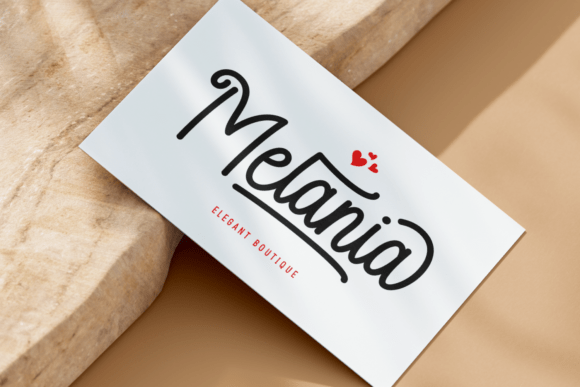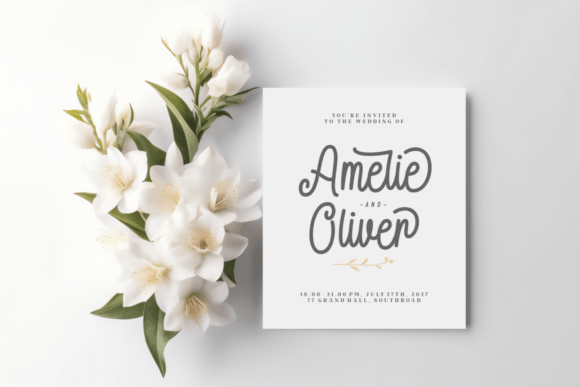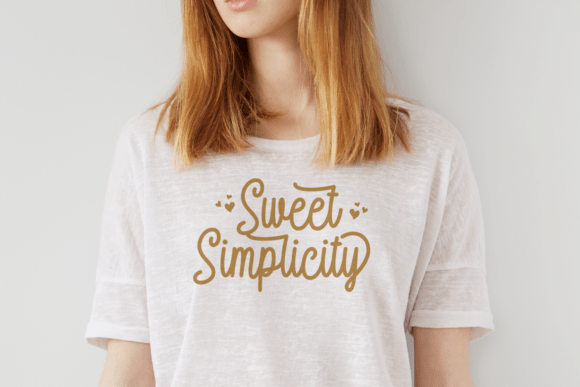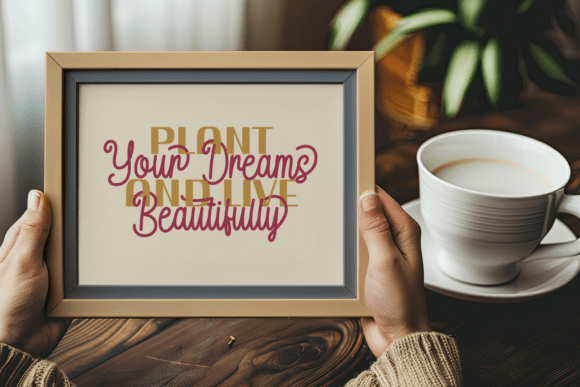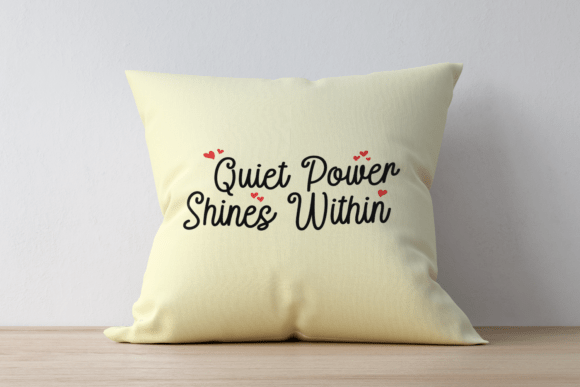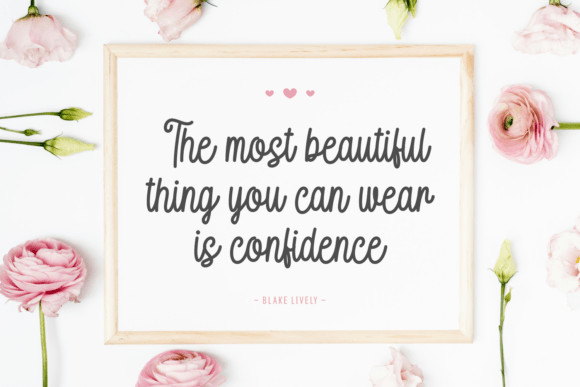
Unleashing the Magic of Handwritten Design
As a designer, have you ever wanted to add a personal touch to your work without sacrificing professionalism? Perhaps you’re looking for a font that exudes warmth and character, yet still conveys your message with clarity. For those moments when you need to inject a little extra personality into your designs, consider the beautifully crafted Candly Font.
This stunning handwritten script font seamlessly blends modern minimalism with effortless charm, making it the perfect choice for designers seeking to create authentic and engaging visuals. With its smooth, flowing strokes and soft yet confident letterforms, Candly Font adds a unique and stylish touch to any design, from branding and advertising to digital and print materials.
Candy Font Key Features
- Unique Characteristics: Highly customizable, featuring 8 different font weights and 3 styles (Regular, Italic, Bold)
Candly Font Review
I recently had the chance to work with the Candly Font, and I have to say it’s a mixed bag. Here’s my honest review.
- The Candly Font is super playful and fun, making it perfect for children’s books, greeting cards, or any project that needs a lighthearted touch.
- The font is highly customizable, allowing you to adjust the size, color, and spacing to fit your design needs.
- The Candly Font is also very legible, even at smaller font sizes, which is a big plus for any designer.
- The Candly Font is a bit too sweet for some projects, and can come across as overly childish or immature.
- The font lacks a clear hierarchy, making it difficult to create a clear visual structure in your design.
- Some characters may not be as detailed as others, which can affect the overall aesthetic of your design.
Overall, I think the Candly Font is a fun and playful addition to any designer’s toolkit. While it may not be the best choice for every project, it’s definitely worth having in your arsenal for the right job. Just be aware of its limitations and use it wisely!
Tips for Getting the Most Out of Candly Font
To get the most out of Candly Font, try the following:
- Pair Candly Font with a clean and minimalist design aesthetic.
- Use Candly Font for headings and titles to create a visually appealing contrast.
Candly Font is perfect for:
- Designing children’s books and educational materials.
- Creating playful and whimsical branding and marketing materials.
- Adding a touch of personality to digital products and apps.
Alternatives to Candly Font
Cream
Cream is a beautiful, elegant script font perfect for creating a soft and feminine look. It’s ideal for wedding invitations, baby showers, and other delicate designs. Compared to Candly Font, Cream is more refined and less playful, making it suitable for more formal occasions.
Luxurious Script
Luxurious Script is a high-end, luxurious font that exudes sophistication and elegance. It’s perfect for luxury brands, high-end fashion designs, and other premium products. Unlike Candly Font, Luxurious Script has a more dramatic flair and is better suited for making a statement.
Great Vibes is a fun and energetic script font that’s perfect for creating a playful and youthful vibe. It’s ideal for designs that need a bit of whimsy and fun, such as social media graphics, blog posts, and children’s products. Compared to Candly Font, Great Vibes is more carefree and less elegant, making it suitable for casual designs.
Carolyna Pro is a modern and stylish script font that’s perfect for creating a contemporary and sophisticated look. It’s ideal for designs that need a bit of edge and modernity, such as fashion designs, product packaging, and advertising materials. Unlike Candly Font, Carolyna Pro has a more streamlined and minimalistic feel, making it suitable for modern and sleek designs.